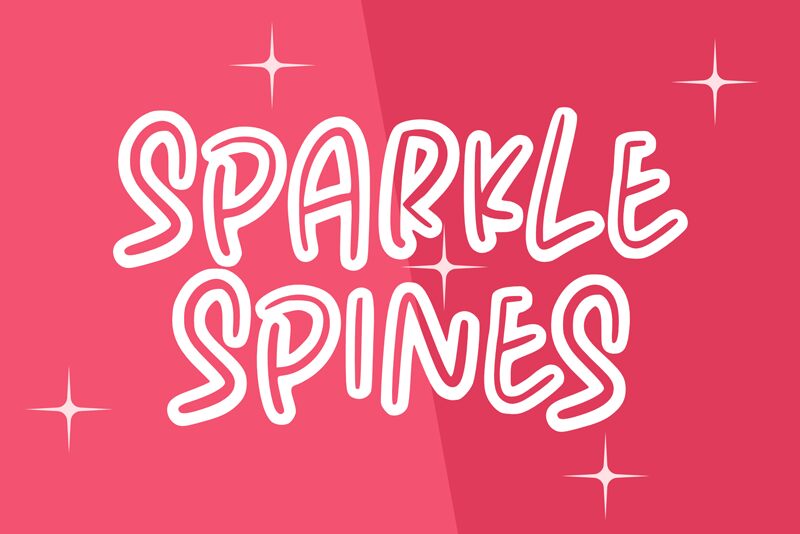
Giggle Gapsy
Giggle Gapsy font, crafted by DumadiStyle, is a lively display font that dances with whimsy and delight. With its cartoonish charm and playful strokes, this typeface bursts with personality and is perfect for projects that need a joyful touch.
The unique characteristics of Giggle Gapsy make it an ideal choice for children's books, playful branding, and festive event invitations. Its spiral motifs and uneven letterforms capture a sense of fun and creativity, setting the stage for engaging connections with any audience.